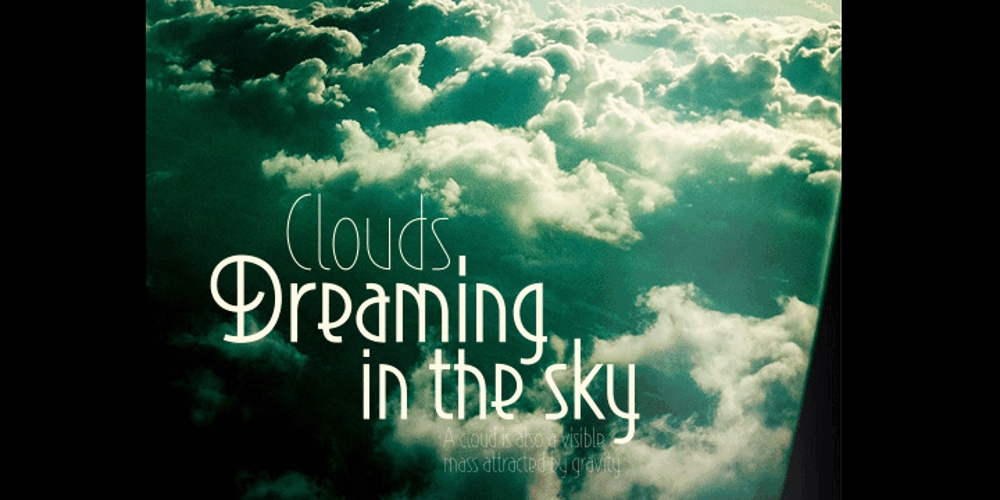
Reader
Reader font
Reader Font Family was designed by Svetoslav Simov and published by Fontfabric. Reader contains 2 styles and family package options. Reader is a custom sans font which is applicable for any type of graphic design – web, print, motion graphics etc and perfect for t-shirts and other items.